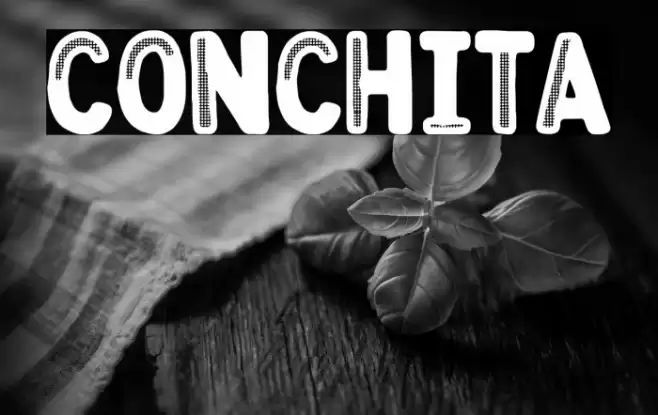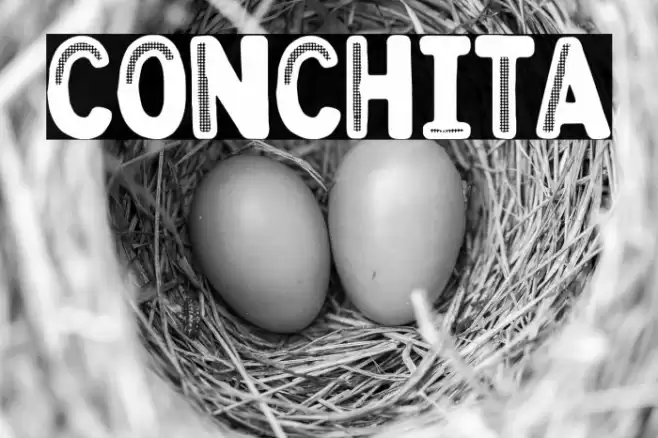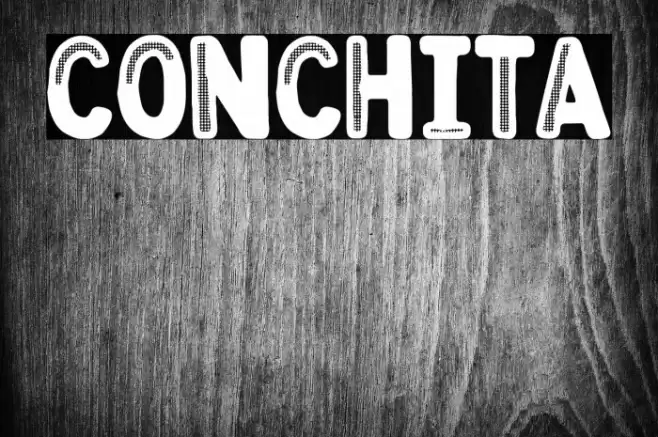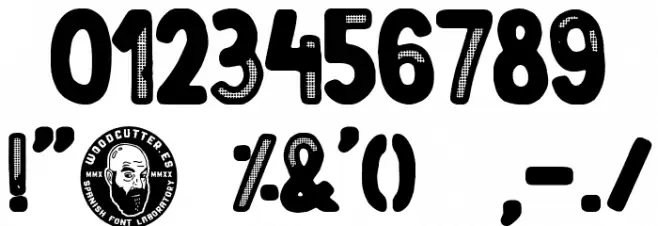
Conchita Font
Conchita Description
This font features a bold and playful design with a unique dotted texture within each character, giving it a dynamic and eye-catching appearance. The uppercase letters are robust and slightly rounded, while the lowercase letters maintain a consistent style, ensuring readability. The numbers are equally bold, matching the overall aesthetic of the alphabet. Special characters are included, maintaining the same playful and bold style. This font is ideal for projects that require a fun and engaging look, such as children's books, posters, or branding for playful products.
A bold, playful font with a unique dotted texture inside each character from Uncategorized fonts.
- Proposed Projects: Ideal for children's books, playful branding, posters, and creative designs.
- Overall Style: Playful, Decorative